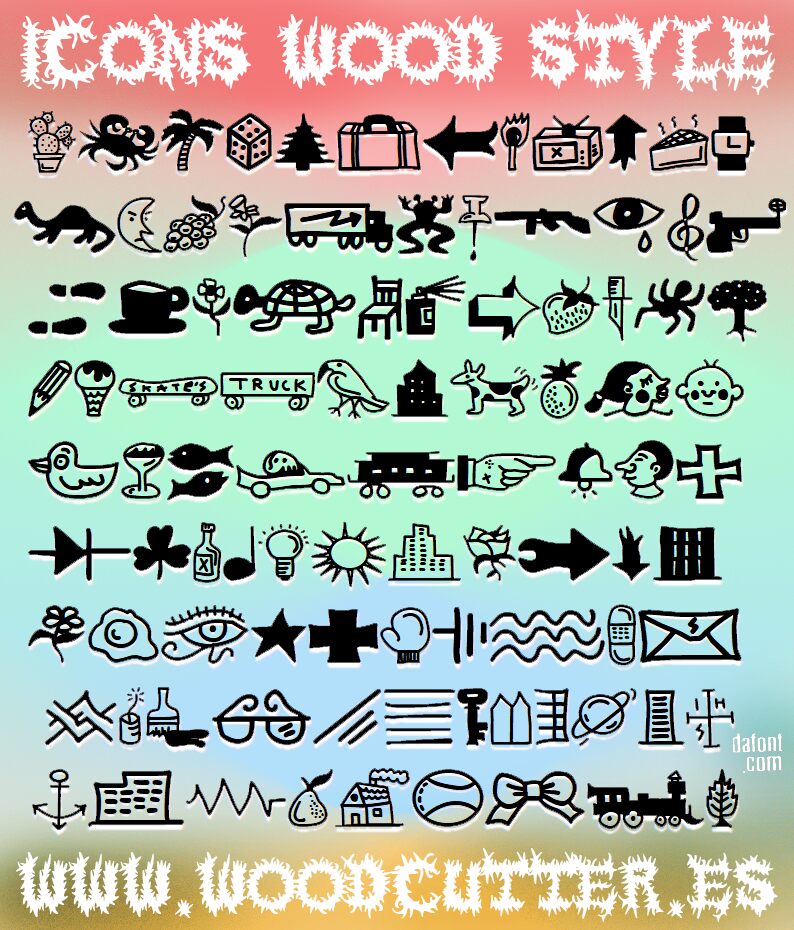
Icons Woodcutter Style font by Woodcutter is a free font showcasing a modern take on line art drawings. Perfect icons are included all related to a different subject matter (activity). The outline strokes are irregular and thick. This gives the font a grungy, chaotic, and organic feel in each of the icons.
Moreover, shapes are translated in a very unconventional way; they are not as expected yet still speck with a clear message. This grungy-imperfect-infographic-style font is ideal for use in cafes and restaurants, activity centers for kids, menus, posters, and visual advertising campaigns.
Icons Woodcutter Style.